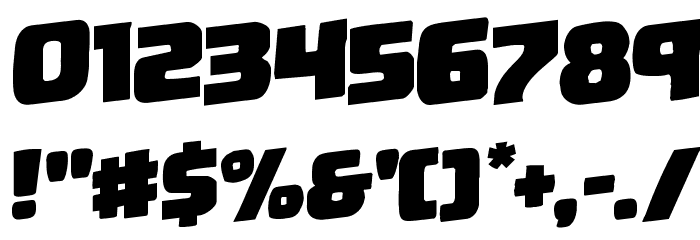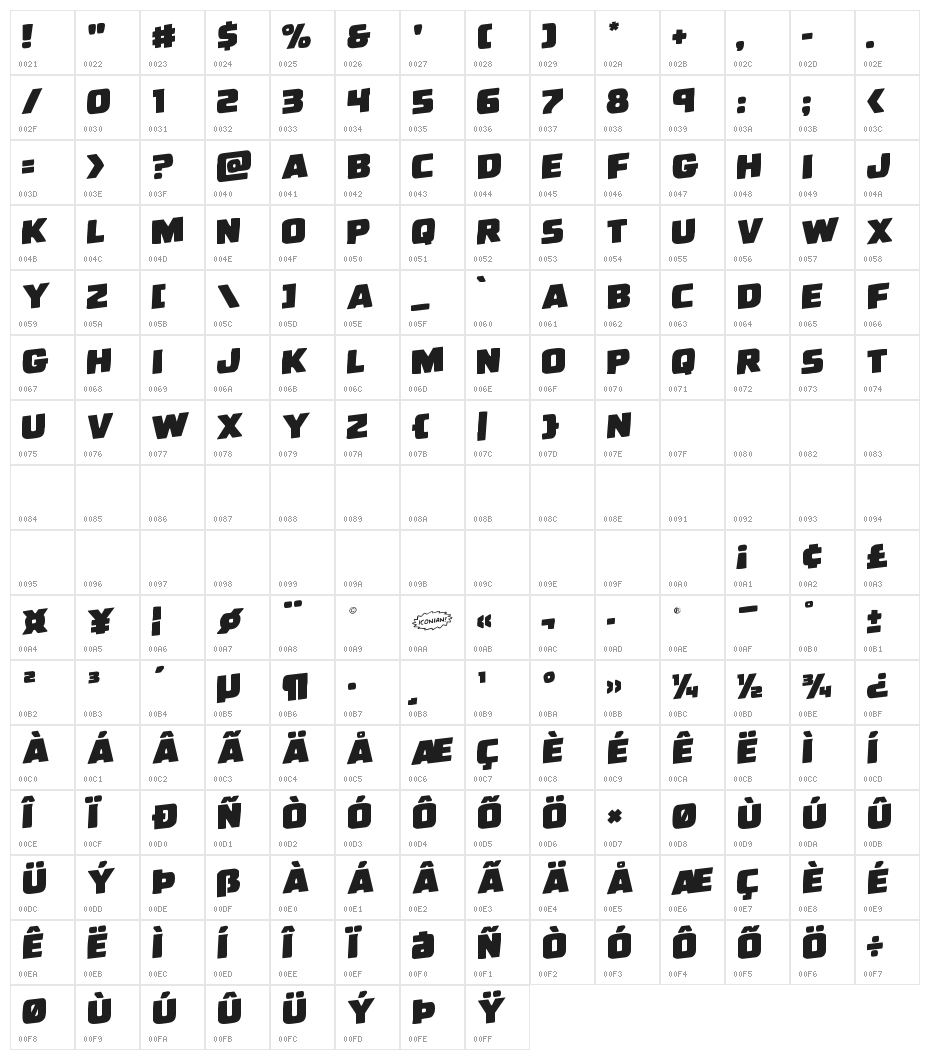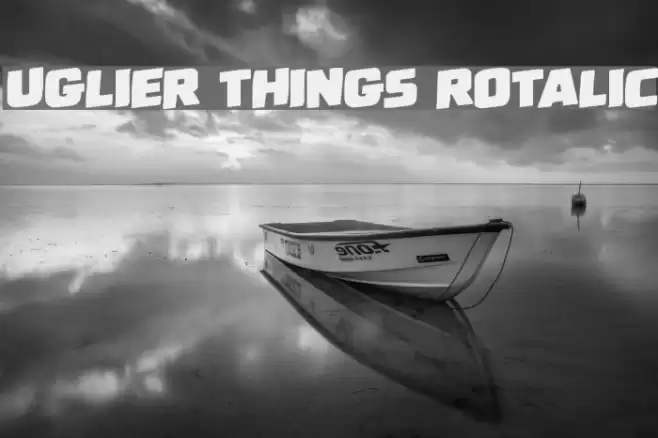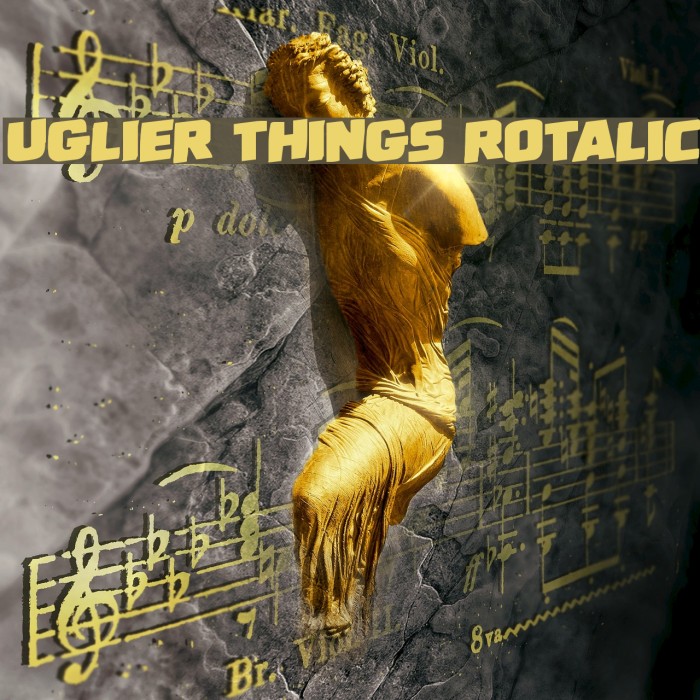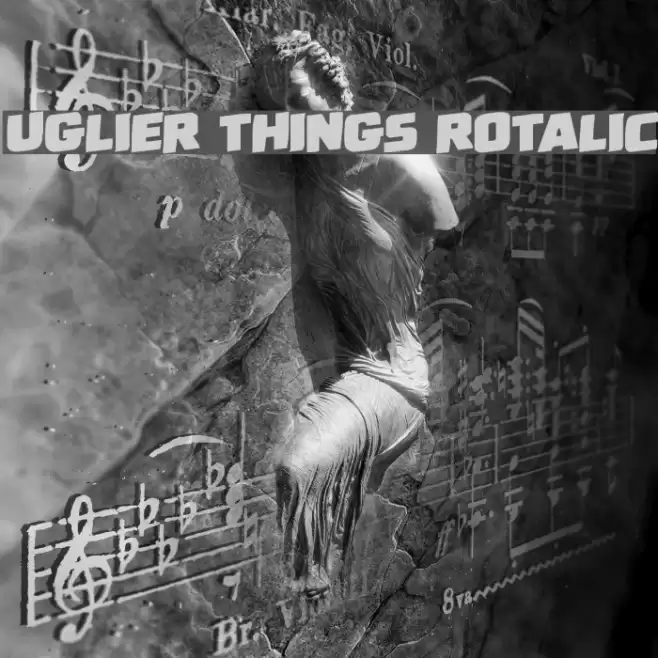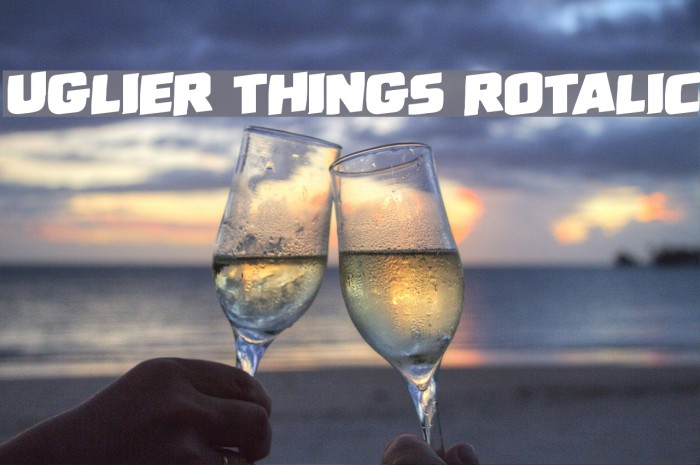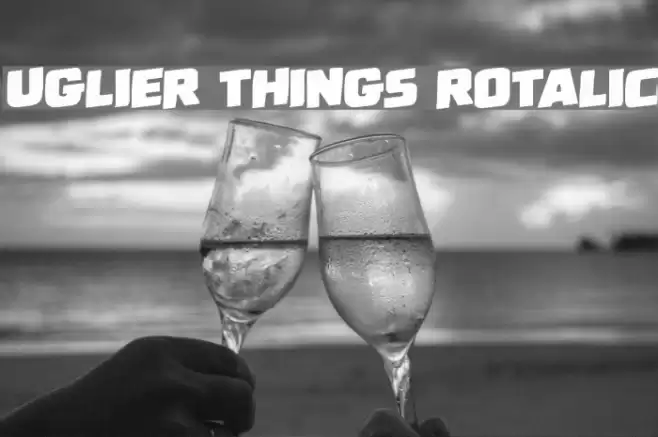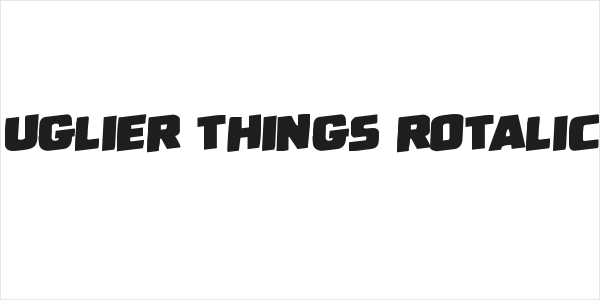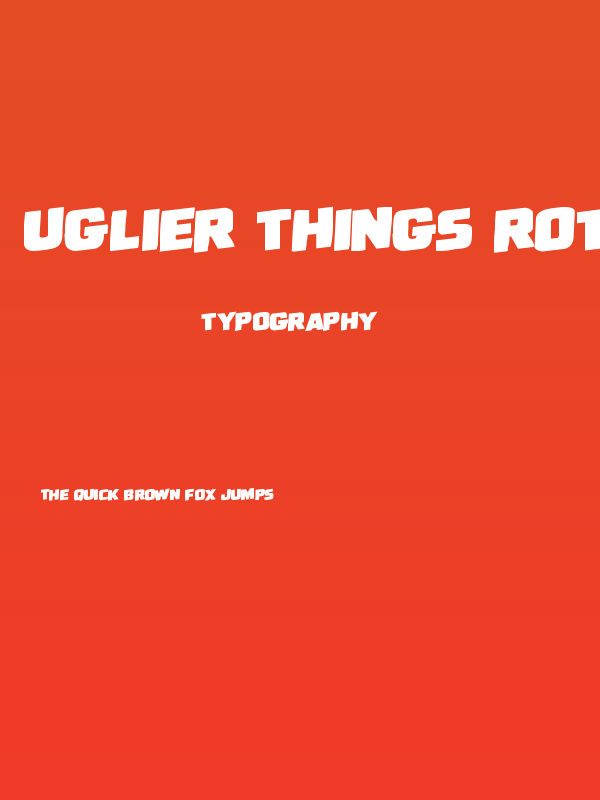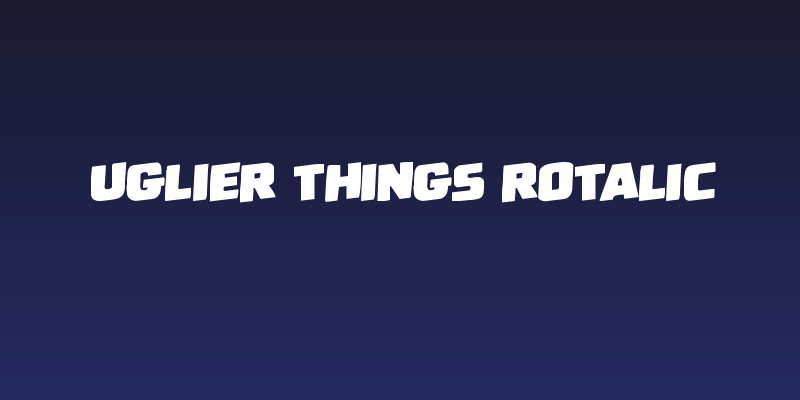
Uglier Things Rotalic Font
Uglier Things Rotalic Description
This font features a bold and dynamic style with a strong presence. The characters are slightly slanted, giving them a sense of movement and energy. The strokes are thick and consistent, contributing to a robust and impactful appearance. The overall design is modern and playful, with a touch of edginess that makes it stand out. The letters are well-spaced, ensuring readability while maintaining a compact look. This font is ideal for projects that require a bold statement, such as posters, headlines, and branding materials.
Proposed ProjectsIdeal for posters, headlines, branding, and any project needing a bold, energetic look.